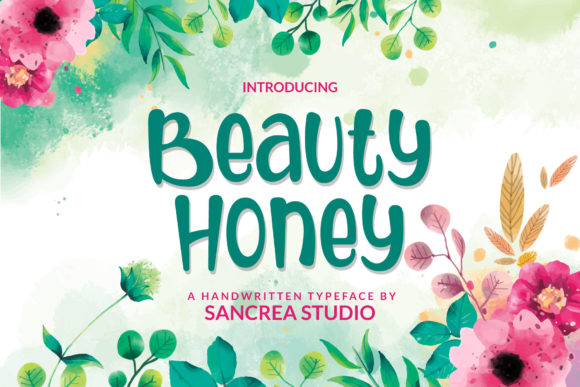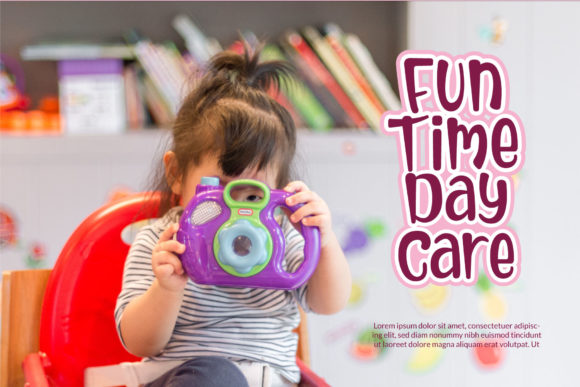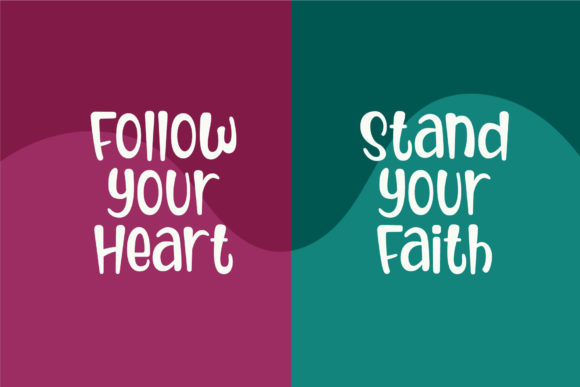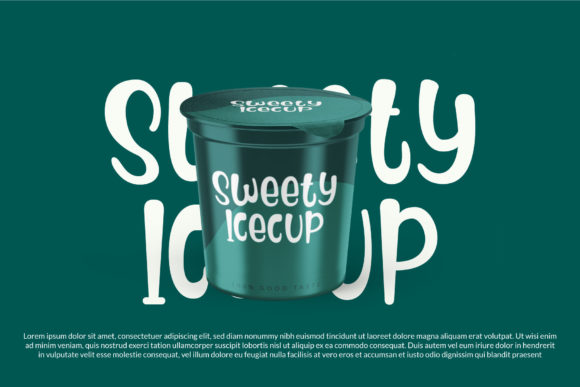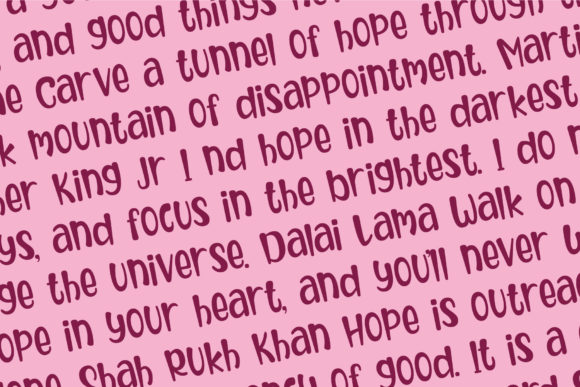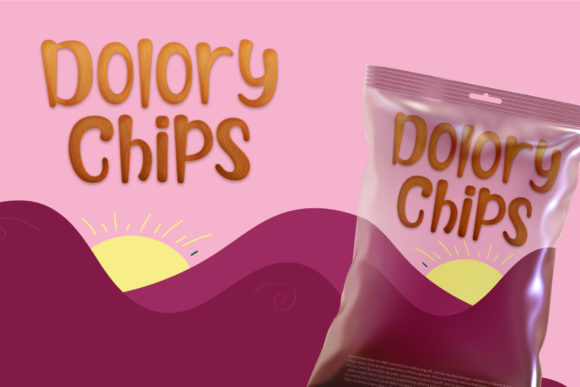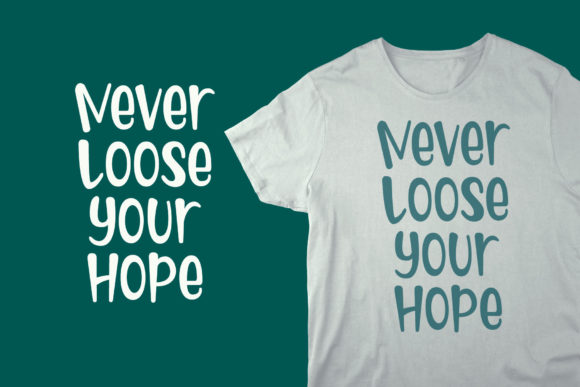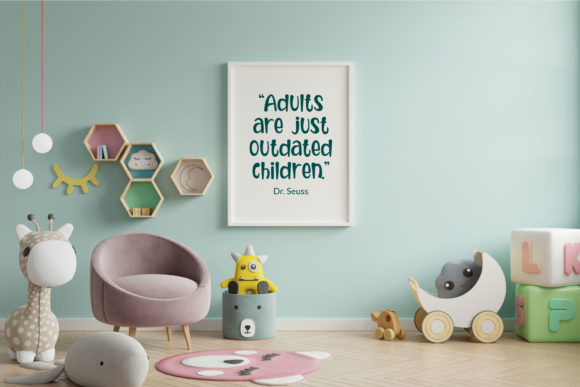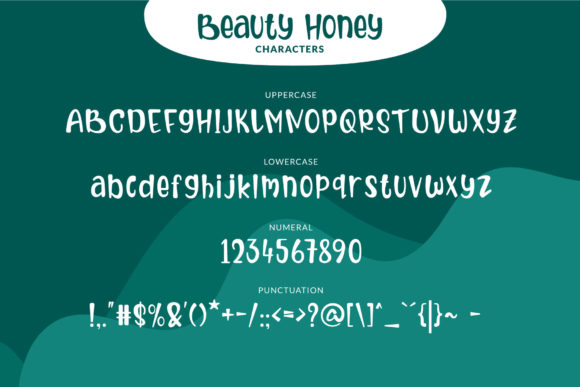
Beauty Honey Font
About Beauty Honey Font
Introducing Beauty Honey: The Fun, Joyful, and Quirky Handwritten Font
Step into a world of fun and joy with Beauty Honey, a font that exudes a lovely vibe with its quirky and handwritten style. This font is perfect for children-themed designs, adding a touch of playfulness and delight to your projects. Embrace the charm of Beauty Honey as you combine it with bright colors to create captivating designs that will bring a smile to anyone’s face.
Beauty Honey’s fun and joyful appeal brings a sense of happiness and positivity to your designs. Its handwritten letterforms flow with a delightful charm, making your text come alive with a touch of whimsy.
As a font with a lovely vibe, Beauty Honey becomes the perfect choice for children-themed designs. Its quirky nature adds a bit of playfulness that resonates with young hearts, creating a sense of magic and wonder.
The font’s versatility shines through as it seamlessly complements various design elements. Whether you’re working on children’s books, posters, invitations, or any project for kids, Beauty Honey enhances your creations with its endearing touch.
Embrace the joy of Beauty Honey as you embark on your creative journey. Let it be the font that spreads happiness and cheer, creating a world of imagination and creativity in every design.
As you explore the possibilities of Beauty Honey, you’ll find it to be a font that transforms your children-themed designs with ease. Its fun and quirky handwritten beauty elevates your work, ensuring that your projects capture the hearts of both kids and adults alike.
So, let Beauty Honey be the font that brings a smile to your creations. Embrace its joyful and quirky nature, and watch as your children-themed designs come to life with a touch of playfulness and delight. With Beauty Honey as your go-to font, your designs will resonate with charm and magic, captivating young minds and leaving a lasting impression. Embrace the joy of Beauty Honey and create designs that are truly delightful and unforgettable!